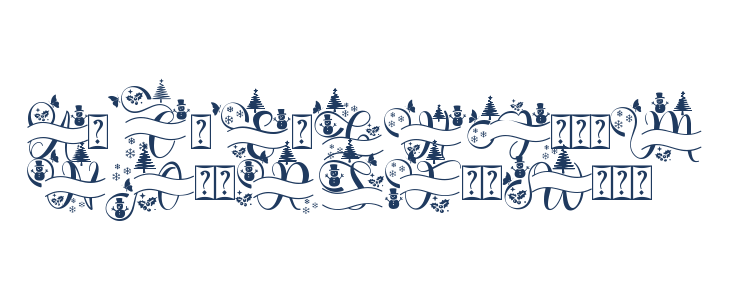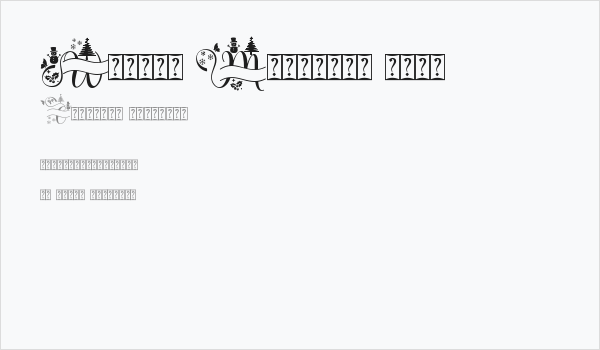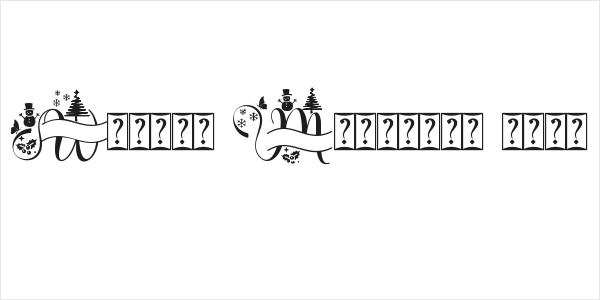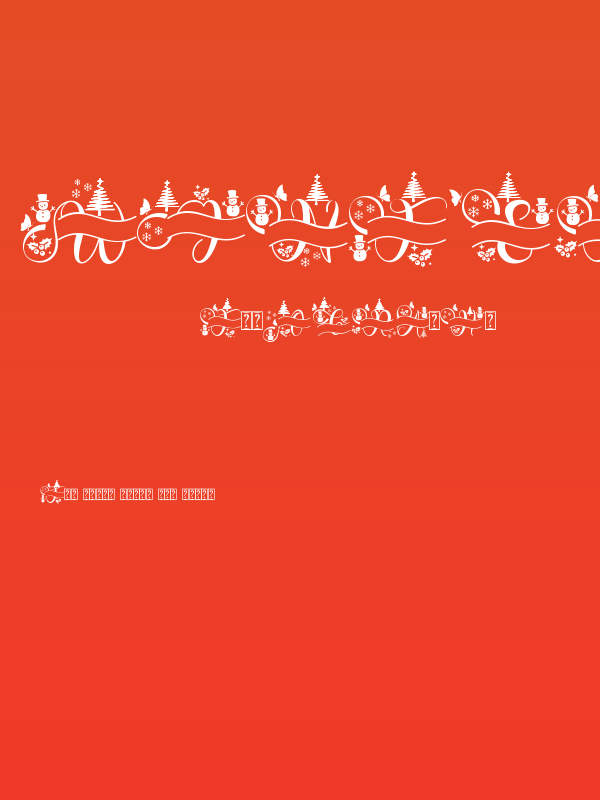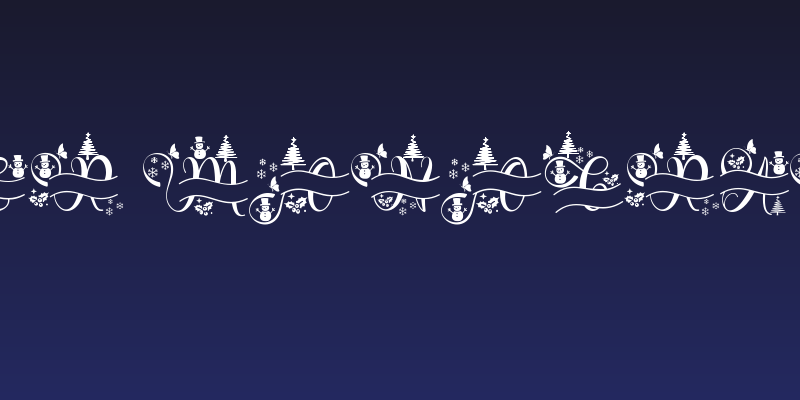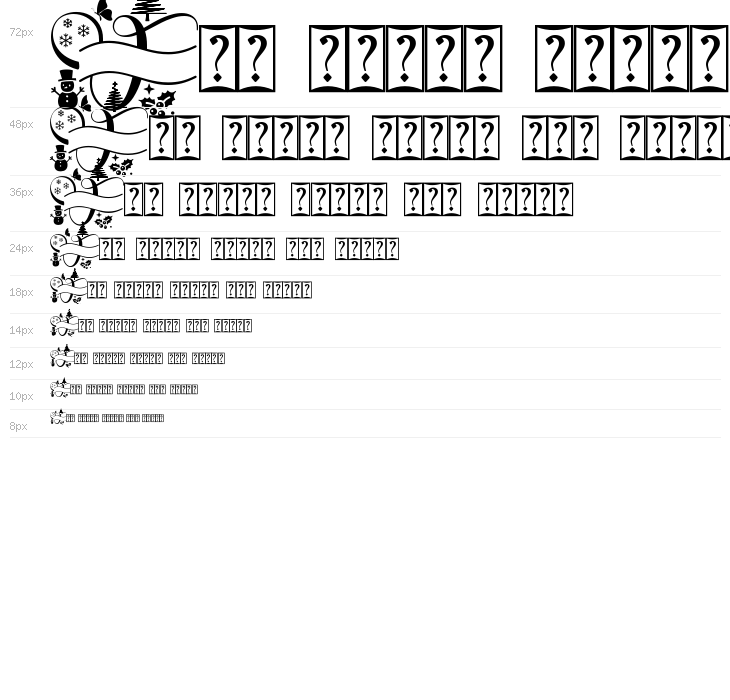
Winter Monogram Demo Font
Winter Monogram Demo Description
A highly decorative winter-themed font featuring monogram-style letters adorned with snowmen, snowflakes, pine trees, and swirling flourishes. Each character is embellished with seasonal motifs, creating a festive and ornate appearance.
| Overall Style | Decorative, Festive, Seasonal |
| Use Case | Logos, Headlines, Invitations, Greeting cards |
| Proposed Projects | Holiday cards, winter event invitations, seasonal branding, festive posters, decorative monograms. |